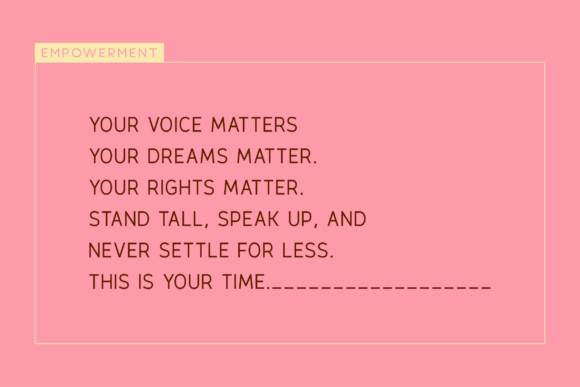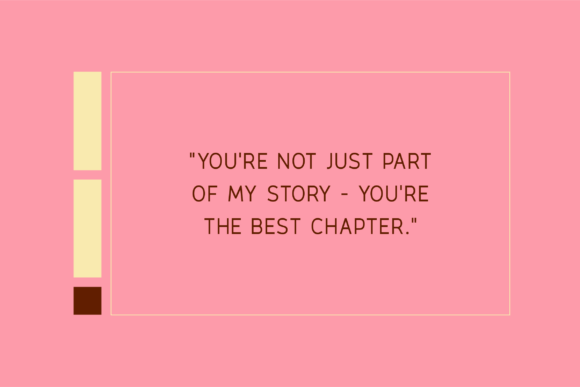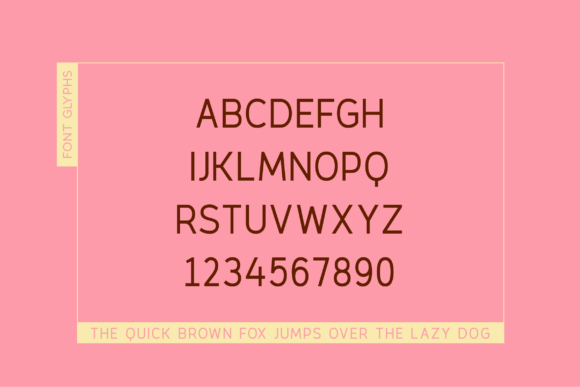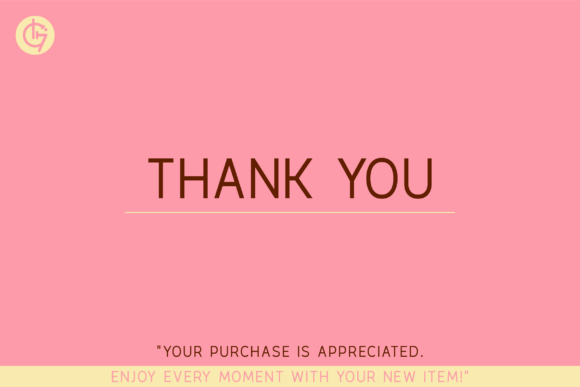
The Perfect Balance: Unveiling the Fronthera Font
Have you ever stared at a blank canvas, trying to decide on the perfect font to bring your creative vision to life? The frustration is real, but what if you had a reliable partner that could elevate your work without overpowering it? Enter the Fronthera Font, a sleek sans-serif typeface that embodies the perfect balance between minimalism and modern design.
This versatile font is designed to adapt to any creative application, from bold headlines and branding projects to digital interfaces and elegant print layouts. With its clean lines, precise kerning, and well-proportioned letterforms, Fronthera Font ensures effortless sophistication and excellent readability across sizes.
Fronthera Font Key Features
- Character Set: The font includes a comprehensive character set, including Latin, Greek, Cyrillic, and various language-specific characters, making it suitable for multilingual typography.
- Font Size and Resolution: Fronthera Font is designed to work well at a range of font sizes, from 10pt to 72pt, and is optimized for resolutions up to 300 DPI.
- Unique Characteristics: Fronthera Font features a unique blend of modern and classic design elements, with subtle flair and elegance, making it ideal for use in high-end branding, publishing, and design applications.
- Language Support: The font includes support for over 200 languages, including Latin, Greek, Cyrillic, and various language-specific scripts, making it a versatile choice for global typography.
- Font Weight and Style: Fronthera Font is available in a range of font weights, from Light to Black, and includes italic and oblique styles, providing flexibility and versatility for designers and typographers.
Fronthera Font Review
Overall, I’m impressed with the Fronthera Font, but it’s not without its quirks. ✨ Let’s start with the good stuff. The font is incredibly versatile, suitable for a wide range of projects, from logos to body text. The subtle rounded edges and open shapes give it a friendly, approachable feel that’s perfect for modern branding.
Another thing I like about Fronthera is its readability. The font is easy on the eyes, even at smaller sizes, making it a great choice for digital projects where text will be viewed on screens.
- ✨ Versatile and suitable for various projects
- ✨ Friendly, approachable feel
- ✨ Easy to read, even at smaller sizes
- ⚠️ Limited character set support for non-Latin scripts
- ⚠️ Some users may find the font too rounded or soft
- ⚠️ Not ideal for projects requiring a bold, dramatic feel
Overall, Fronthera Font is a solid choice for designers looking for a modern, friendly font. While it may not be perfect for every project, it’s a great option for a wide range of applications.
Tips for Getting the Most Out of Fronthera Font
For optimal results, use Fronthera Font in headings and titles to create a clear visual hierarchy.
Experiment with different font sizes and styles to create contrast and emphasis.
Fronthera Font is ideal for:
Editorial and publishing
Marketing materials and advertisements
Alternatives to Fronthera Font for Designers
Merrriweather is a classic serif font that is ideal for body text and print materials. It has a traditional look and feel, making it suitable for formal documents, magazines, and books. Compared to Fronthera Font, Merriweather is more formal and elegant, with a higher x-height that makes it easier to read.
Open Sans is a modern sans-serif font that is highly legible and versatile. It is suitable for digital materials, such as websites, mobile apps, and presentations. Compared to Fronthera Font, Open Sans is more minimalist and clean, making it ideal for modern designs and digital interfaces.
3. Georgia Font
Georgia is a serif font that is designed specifically for digital materials. It is clear and readable on screens, making it suitable for web pages, emails, and digital documents. Compared to Fronthera Font, Georgia is more legible on screens and has a more classic look, making it ideal for digital materials that require a traditional feel.